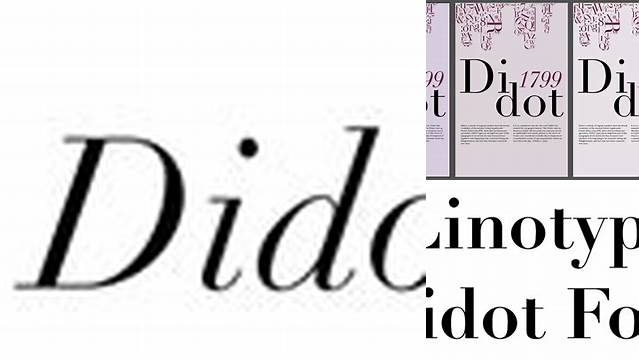
Linotype Didot font free download is a phrase that many graphic designers, typographers, and enthusiasts search for. This elegant typeface has a rich history and continues to be a favorite for its sophisticated and refined aesthetic. In this article, we'll delve into the world of the Linotype Didot font, explore its origins, understand its characteristics, and guide you on how to find it. We'll also discuss its various uses and why it remains a popular choice in the world of design.
The Genesis of Linotype Didot: The Didot family of typefaces traces its roots back to the Didot family in 18th-century France. Firmin Didot, a member of the Didot family, was a prominent printer, publisher, and type designer. The Didot typeface emerged from the neoclassical style, which emphasized elegance, precision, and rationality. This style was a stark contrast to the more elaborate and ornamental typefaces that were prevalent during the Baroque period. The Didot typeface quickly gained recognition for its high contrast between thick and thin strokes, its vertical stress, and its sharp serifs. These features gave the typeface a refined and modern appearance that was perfectly suited for the elegant publications of the time. The Didot family, including Firmin, played a crucial role in the development of printing and typography, leaving a lasting impact on the world of design. Their contributions extended beyond the creation of the typeface; they also revolutionized printing techniques and established new standards for typography.
The Linotype Didot, a specific version of the Didot typeface, gained popularity due to its availability for use with the Linotype machine, a groundbreaking invention in the printing industry. The Linotype machine automated the typesetting process, making it faster and more efficient to produce text. This accessibility of Linotype Didot, combined with its elegant design, cemented its place in the world of typography. This accessibility made it easier for printers to use the typeface, leading to its widespread adoption. The Linotype version of Didot maintained the core characteristics of the original design while adapting to the technical requirements of the Linotype machine. The influence of the Didot typeface is evident in various areas, from book publishing to fashion magazines, showcasing its versatility and enduring appeal.
Characteristics of Linotype Didot Font:
The Linotype Didot font is characterized by its distinctive features that set it apart from other typefaces. Understanding these characteristics is crucial for designers who want to use this font effectively. One of the most prominent features is the high contrast between thick and thin strokes. This contrast gives the typeface a dramatic and elegant appearance. The vertical stress of the letterforms adds to this elegance, creating a sense of verticality and sophistication. The sharp, hairline serifs are another hallmark of the Didot family. These serifs are fine and precise, contributing to the overall clarity and refinement of the typeface. These serifs are particularly noticeable in the lowercase letters, where they create a sense of delicacy and grace. The overall design of the Linotype Didot font conveys a sense of modernity and sophistication, making it well-suited for high-end branding, editorial design, and luxury goods. The typeface's design is often associated with classic design principles, which emphasize simplicity, clarity, and elegance.
The high contrast in the strokes is particularly noticeable in the letters, where the vertical strokes are significantly thicker than the horizontal strokes. This contrast creates a visual rhythm that draws the eye across the text. The vertical stress of the letterforms contributes to this effect, giving the letters a sense of height and formality. The sharp serifs add to the typeface's overall crispness and elegance. These serifs are small and precise, and they help to define the letterforms and improve readability. The combination of these features makes the Linotype Didot font ideal for headings, subheadings, and other display text. It also works well in body text, especially when used in short passages or in combination with other typefaces.
How to Use Linotype Didot in Your Designs:
When incorporating the Linotype Didot font into your designs, consider its unique characteristics and how they can enhance the overall aesthetic. The typeface is particularly effective in headings, titles, and other display text due to its elegance and high contrast. Its refined appearance adds sophistication and a sense of luxury to your designs. Experiment with different sizes and weights of the font to achieve the desired visual impact. Ensure good contrast between the text and the background, and select a color palette that complements the font's elegance. Careful font pairing is key to the successful use of Linotype Didot. It pairs well with simple, sans-serif fonts for body text to create a balanced and visually appealing design. This combination creates a sense of harmony and visual interest. The Didot font's elegance makes it ideal for high-end branding projects, such as fashion magazines, luxury goods advertisements, and wedding invitations. It can communicate sophistication and quality. Remember to maintain sufficient spacing between lines of text to ensure readability. This is crucial for both headings and body text. Avoid using the font in long blocks of text, as its high contrast can make it difficult to read. Use it sparingly and strategically to maximize its visual impact.
For print design, the high contrast of the font works well in magazines, brochures, and other printed materials. Its sharp serifs and elegant style will make your designs stand out. In digital design, Linotype Didot can be used on websites, social media, and digital ads. Make sure the font is web-safe and renders correctly across different devices and browsers. Optimize the font for various digital platforms, paying attention to factors such as readability and legibility. When using the font for branding, ensure consistency across all design elements. This includes your logo, website, and marketing materials. The consistent use of the font will help build brand recognition and strengthen your brand's identity. Experiment with different styles of Linotype Didot, such as regular, italic, and bold, to add interest and variation to your designs. Each style has its own unique characteristics, and using them strategically can enhance your design's overall appeal. Always test your designs on various devices to ensure that the font is displayed correctly and that the user experience is optimized.
The Timeless Appeal of Linotype Didot:
The enduring popularity of the Linotype Didot font stems from its classic elegance and its versatility. The typeface has transcended time, remaining a favorite among designers for its ability to convey sophistication and refinement. Its clean lines, sharp serifs, and high contrast continue to make it a go-to choice for projects that aim to project an air of luxury and elegance. The font’s connection to historical and cultural context adds to its appeal. Its roots in the neoclassical period give it a sense of gravitas and tradition. The Didot family's contributions to the printing industry and typography further cement its position as a classic typeface. The adaptability of Linotype Didot ensures that it continues to be relevant in contemporary design trends. It works equally well in both print and digital media. The typeface is also versatile, able to be used in a variety of design projects, from editorial layouts to branding and advertising. It consistently adds a touch of class and style to the work. The timeless appeal of the Linotype Didot font will continue to make it a favorite of designers for years to come.
It remains a symbol of elegance and refinement in the world of typography. Its enduring popularity can be attributed to its classic design, its versatility, and its ability to convey sophistication and sophistication. Its rich history and connection to the neoclassical period add to its appeal, making it a favorite among designers who want to add a touch of class and style to their work. Whether used in print or digital designs, the Linotype Didot font will continue to captivate audiences and leave a lasting impression.